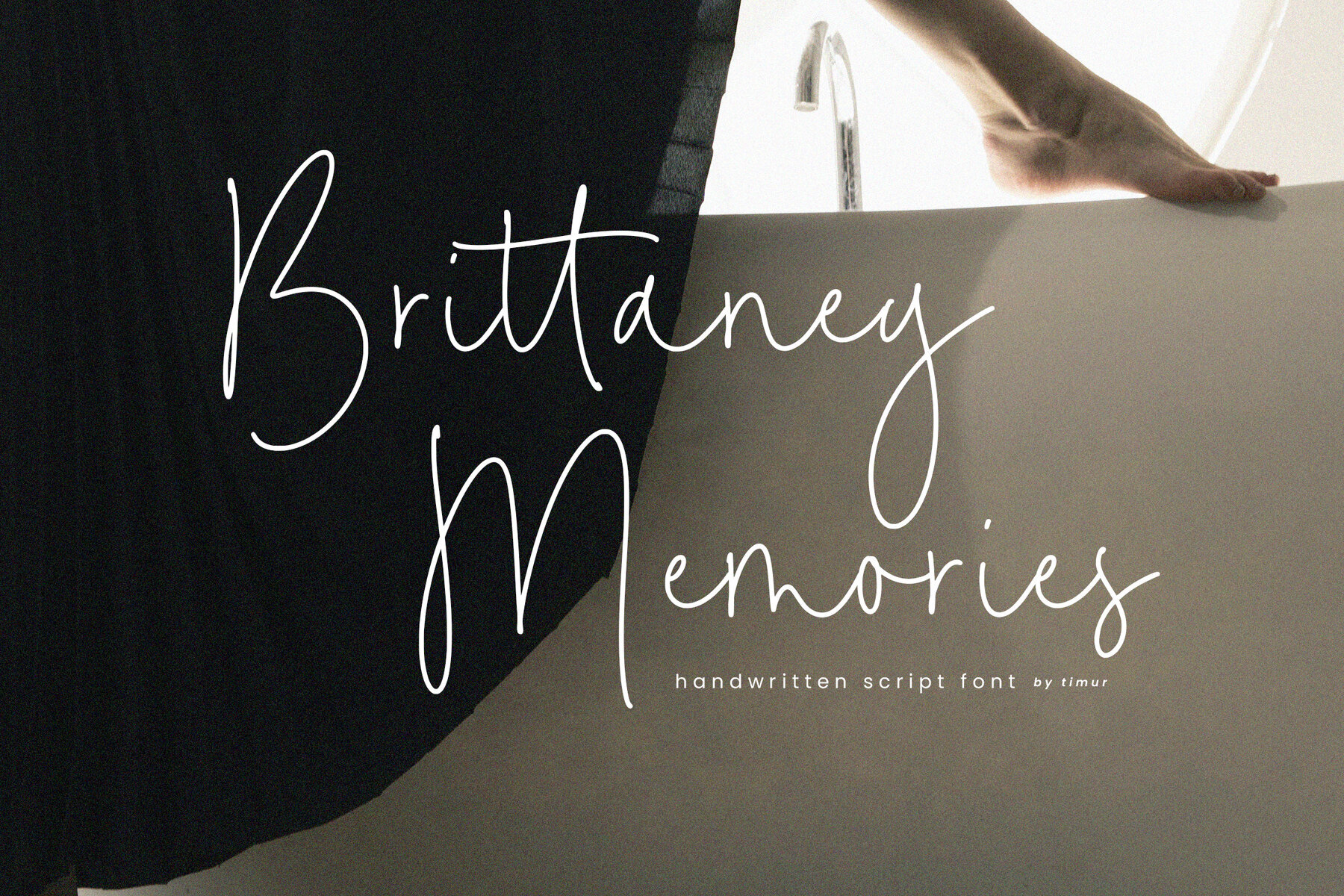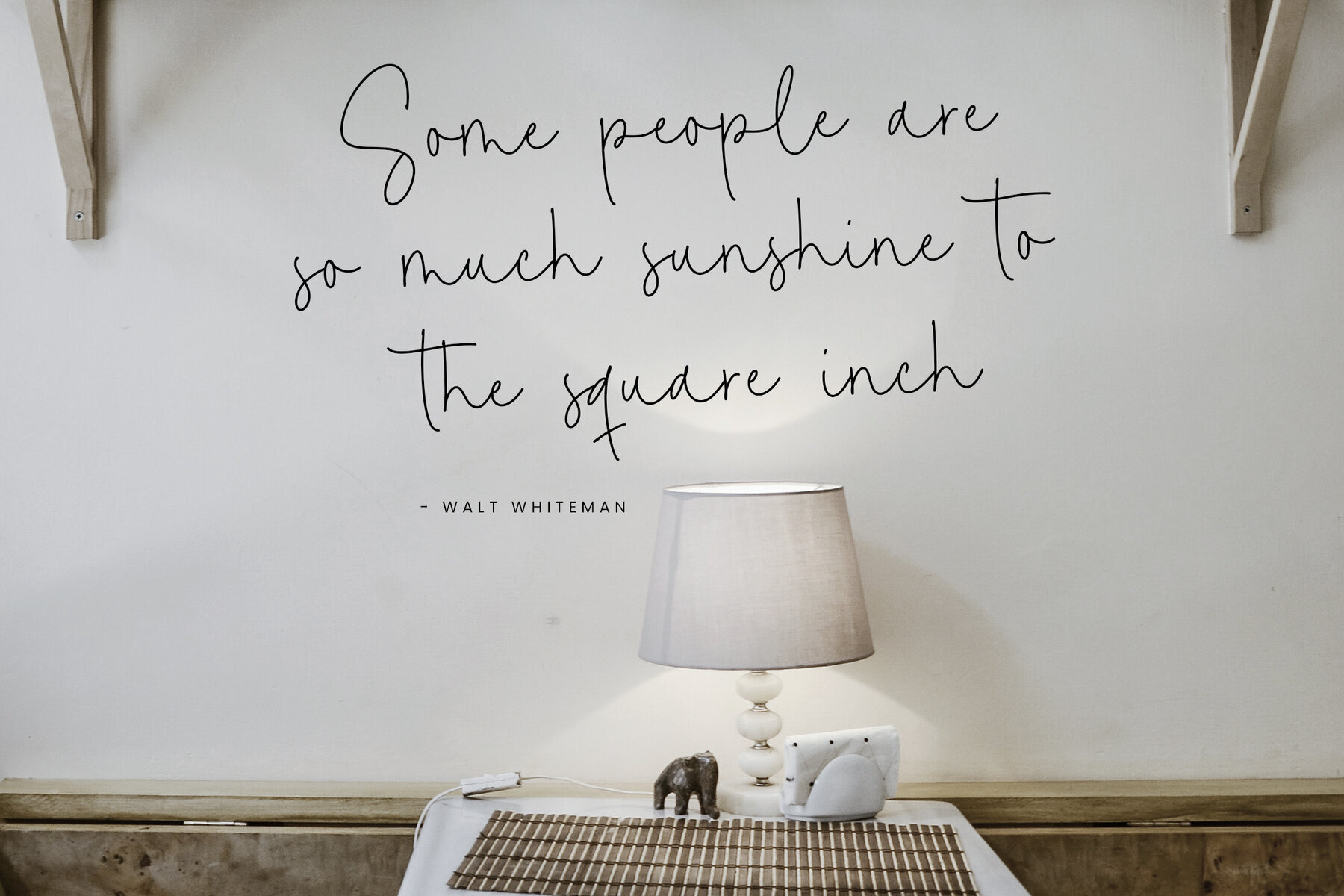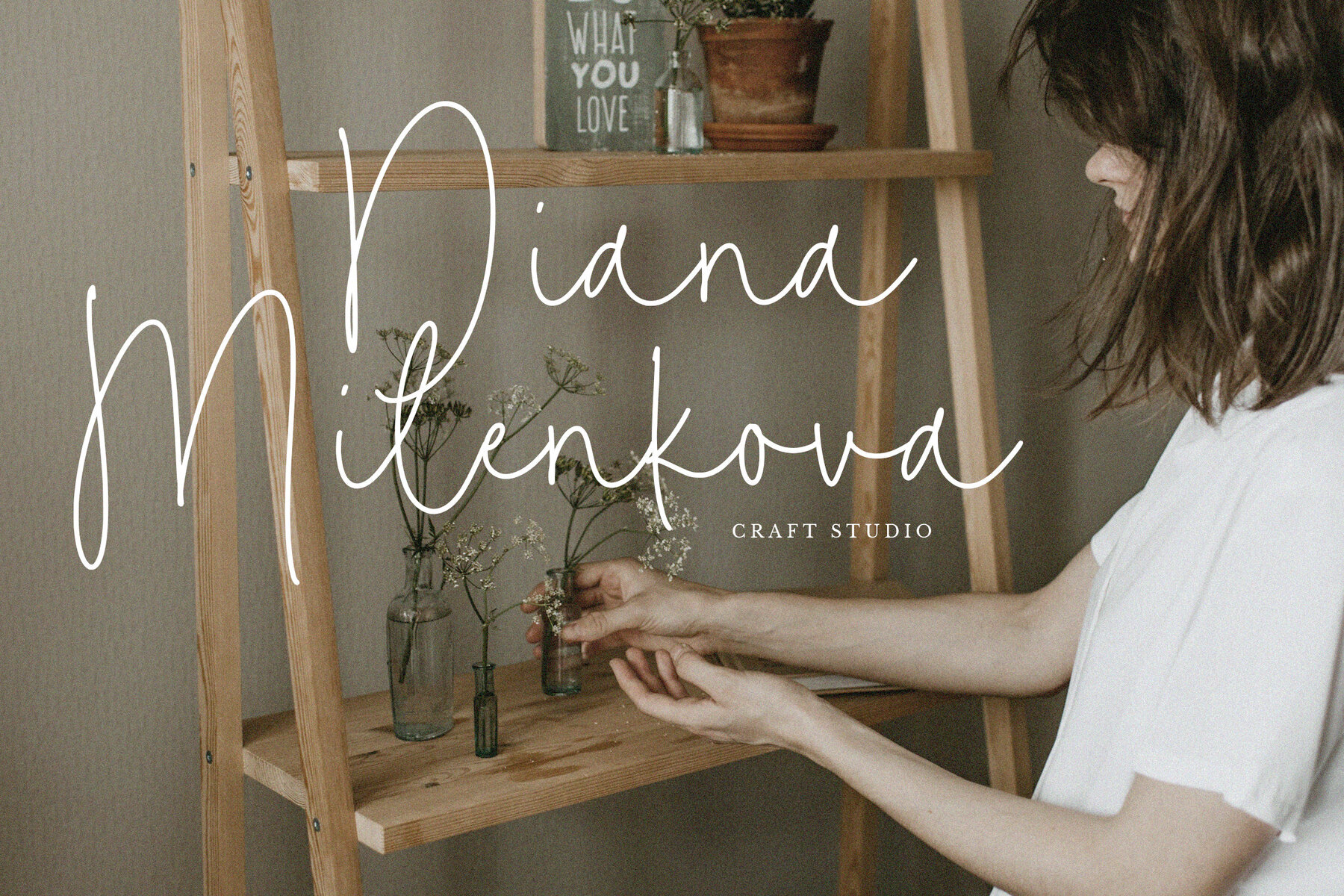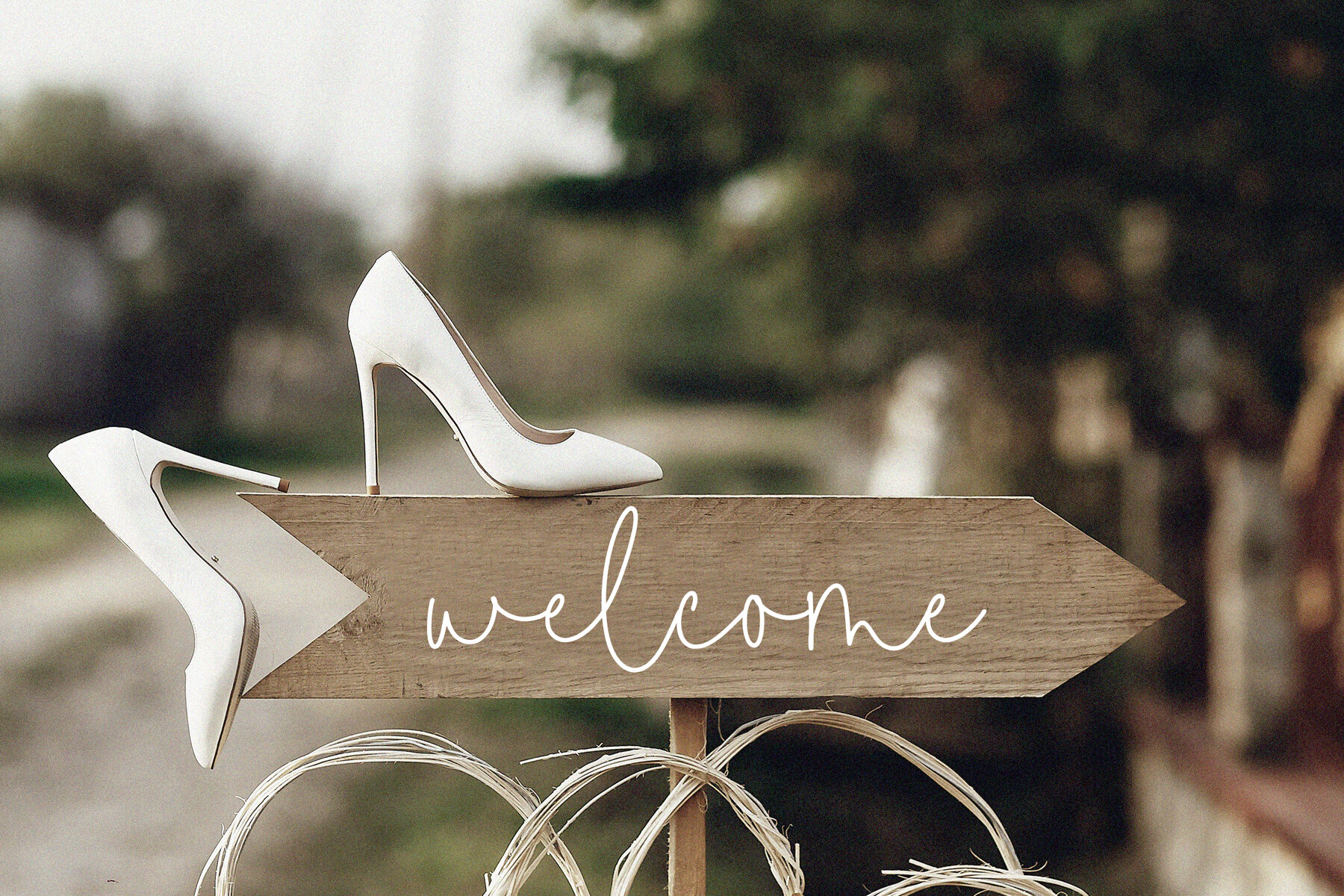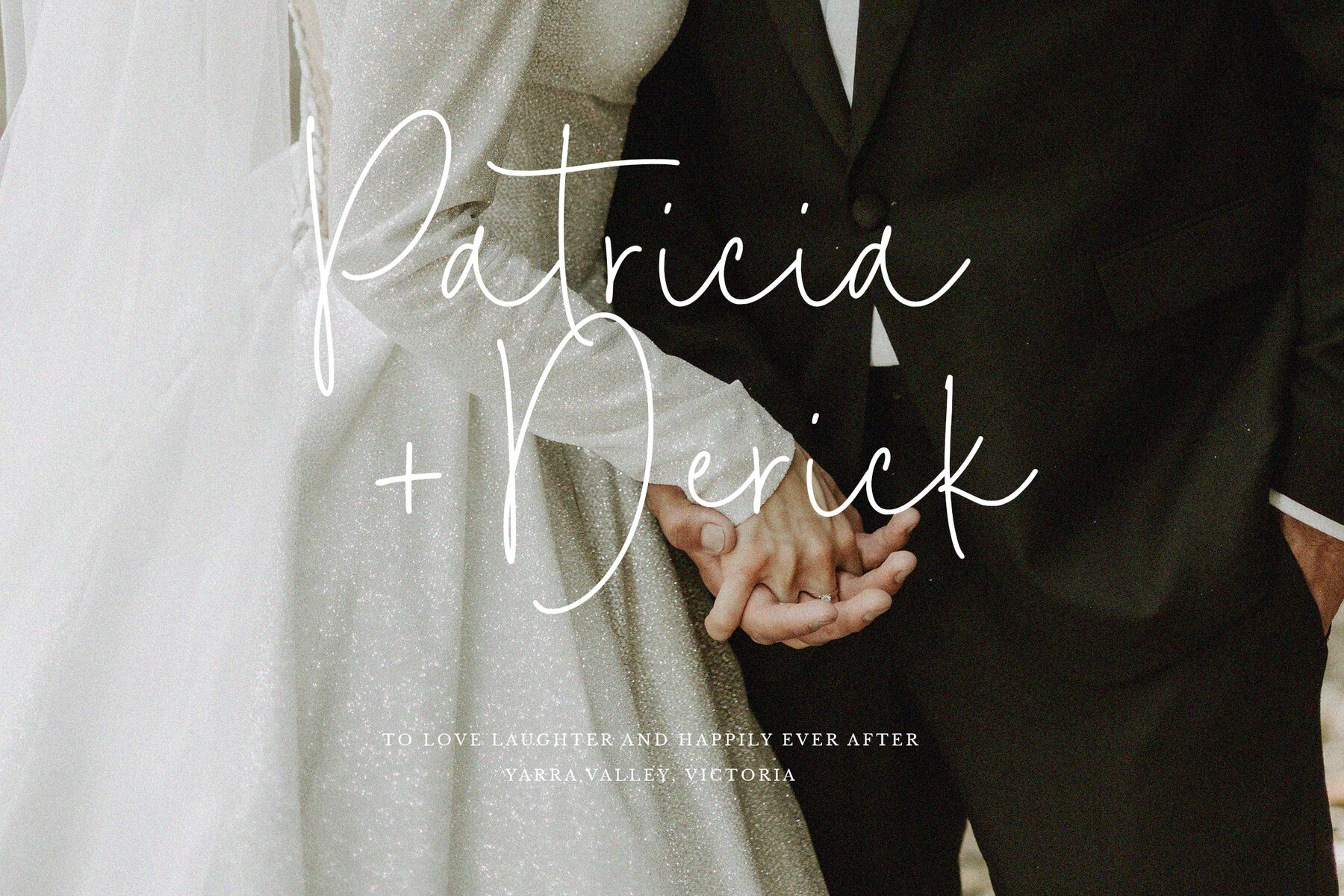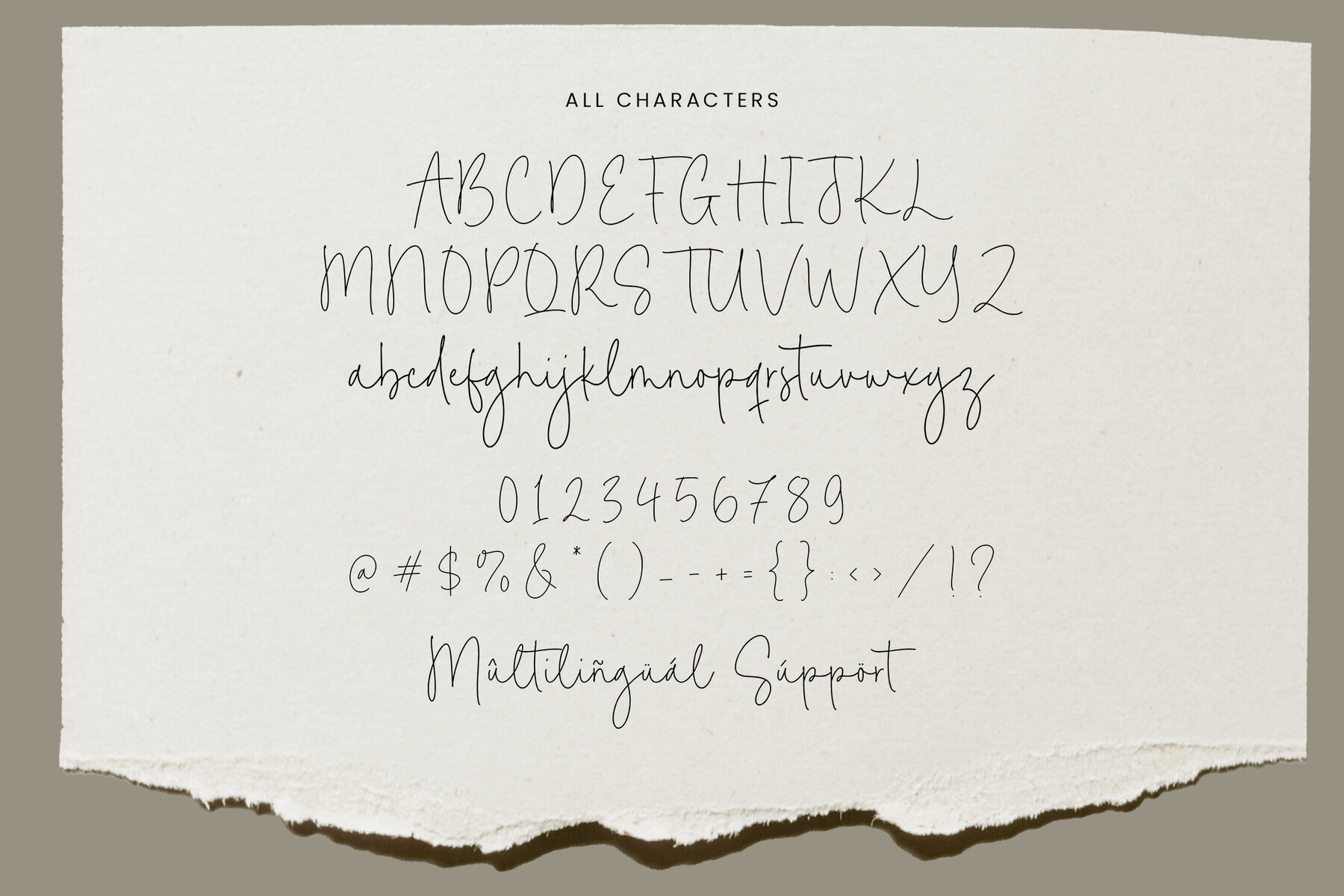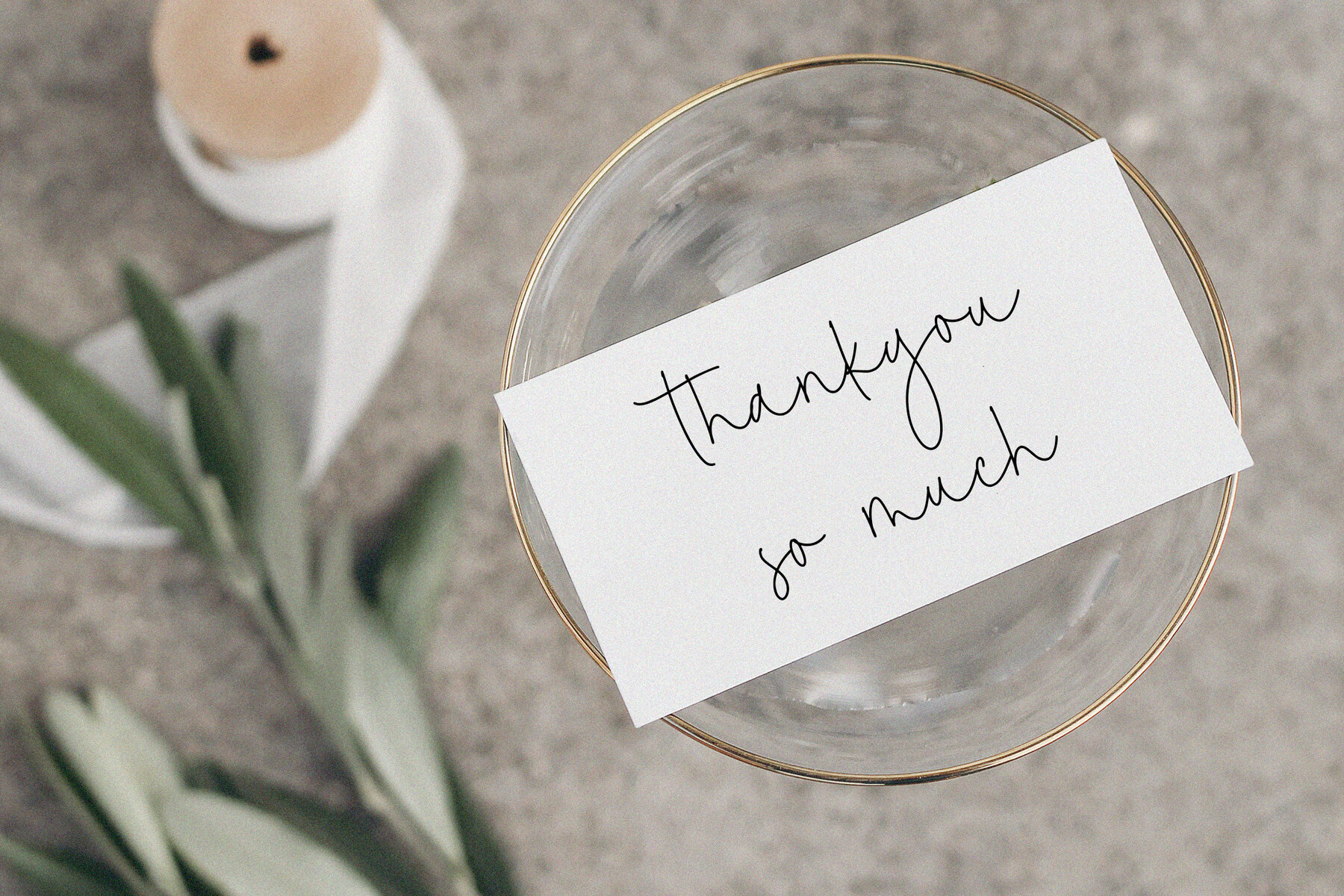
Brittaney Memories Font
Brittaney Memories
Brittaney Memories is a modern script font that offers a fresh and inviting feel to any project. Ideal for product packaging, branding, magazines, social media, and weddings, Brittaney Memories brings a charming warmth that enhances your designs. Its contemporary look ensures your text stands out beautifully across various applications.
Whether you're designing for print or digital media, Brittaney Memories adds a touch of elegance and sophistication. Its versatile nature makes it perfect for expressing words gracefully on different backgrounds, making your message unmissable. Experience the charm and functionality of Brittaney Memories in your next design project.